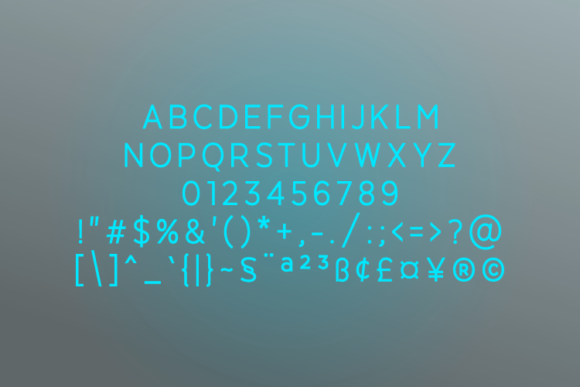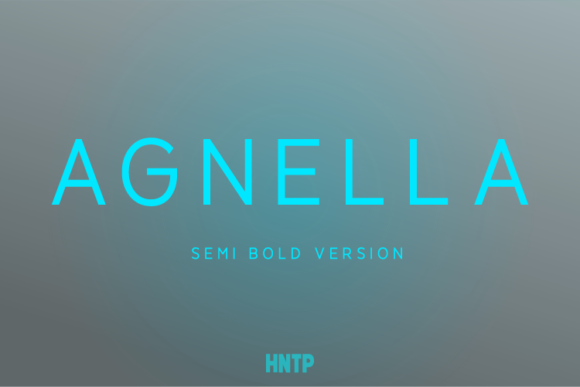
Agnella Semi-Bold Font: Elevate Your Design with Elegance and Strength
In the world of typography, fonts play a crucial role in conveying the message and aesthetic of a design. For designers and crafters looking for a typeface that combines elegance with strength, Agnella Semi-Bold Font is an excellent choice. Agnella is an effective sans serif font with a touch of subtle elegance, making it perfect for a wide range of design projects.
The Unique Characteristics of Agnella Font
Agnella’s design is distinguished by its vertically and horizontally cut stems, which make it appear strong and steady. This unique feature sets Agnella apart from other sans serif fonts and gives it a distinctive look that can add depth and character to any design. The clean lines and geometric shapes of Agnella ensure that it remains highly legible, even at smaller sizes, making it versatile for use in various applications, from digital interfaces to print materials.
Why Choose Agnella Semi-Bold Font?
There are several reasons why designers and crafters might prefer Agnella Semi-Bold Font for their projects:
- Elegance and Strength: Agnella strikes a perfect balance between elegance and strength, making it suitable for designs that require a touch of sophistication without compromising on visibility and impact.
- Versatility: The font’s clean and simple design makes it versatile for a wide range of applications, including logos, headings, and body text.
- Legibility: The unique cut stems of Agnella not only add to its aesthetic appeal but also enhance its legibility, ensuring that your message is conveyed clearly.
- Modern Appeal: Agnella’s sleek design gives it a modern appeal that can help keep your design looking contemporary and fresh.
Applications of Agnella Semi-Bold Font
The applications of Agnella Semi-Bold Font are vast and varied. Here are some of the areas where Agnella can make a significant impact:
- Branding and Logos: Use Agnella to create a strong and elegant brand identity that stands out.
- Web Design: Agnella’s legibility and clean design make it an excellent choice for digital interfaces, including website headings and body text.
- Print Design: Whether it’s for brochures, posters, or business cards, Agnella can add a touch of sophistication to your print materials.
- Packaging: The font’s unique characteristics make it suitable for product packaging, helping your product stand out on shelves.
Tips for Using Agnella Semi-Bold Font Effectively
To get the most out of Agnella Semi-Bold Font, consider the following tips:
- Pair with Complementary Fonts: While Agnella is elegant and strong on its own, pairing it with complementary fonts can enhance its appeal and create visual interest.
- Experiment with Sizes: Don’t be afraid to experiment with different sizes to find the perfect balance for your design.
- Consider Line Spacing: Ensure that your text is easy to read by paying attention to line spacing, especially when using Agnella for body text.
Agnella Semi-Bold Font is a versatile and elegant typeface that can elevate your designs with its unique blend of strength and sophistication. Whether you’re a designer working on a client project or a crafter looking for the perfect font for your handmade goods, Agnella is an excellent choice. Its legibility, modern appeal, and distinctive design make it suitable for a wide range of applications, from digital interfaces to print materials. By incorporating Agnella Semi-Bold Font into your design projects, you can create visually appealing and effective communications that capture your audience’s attention.